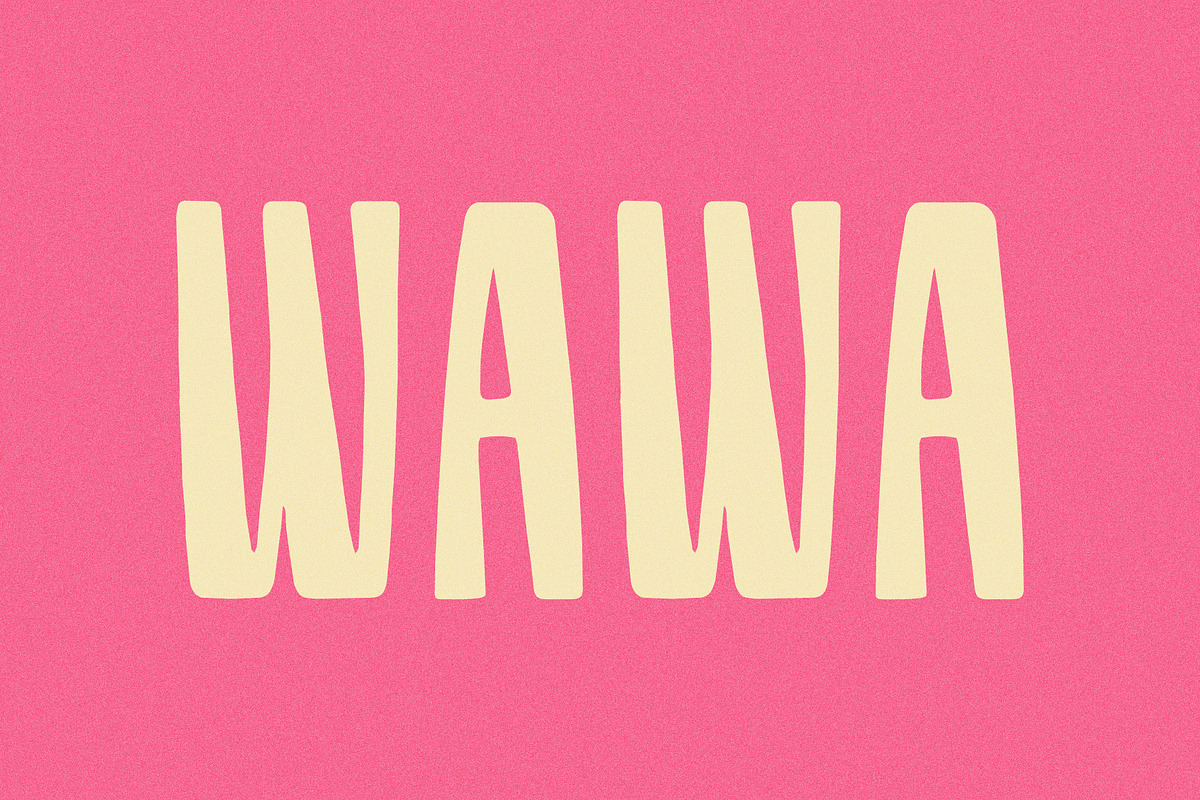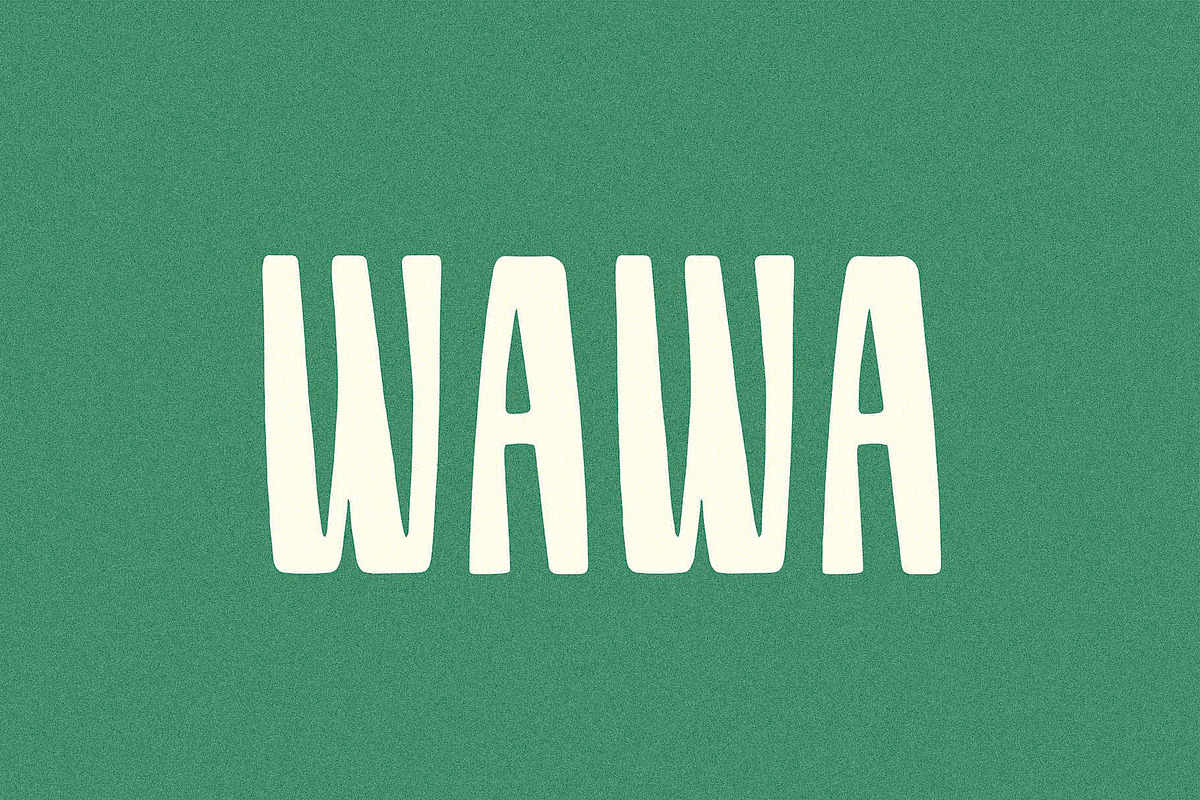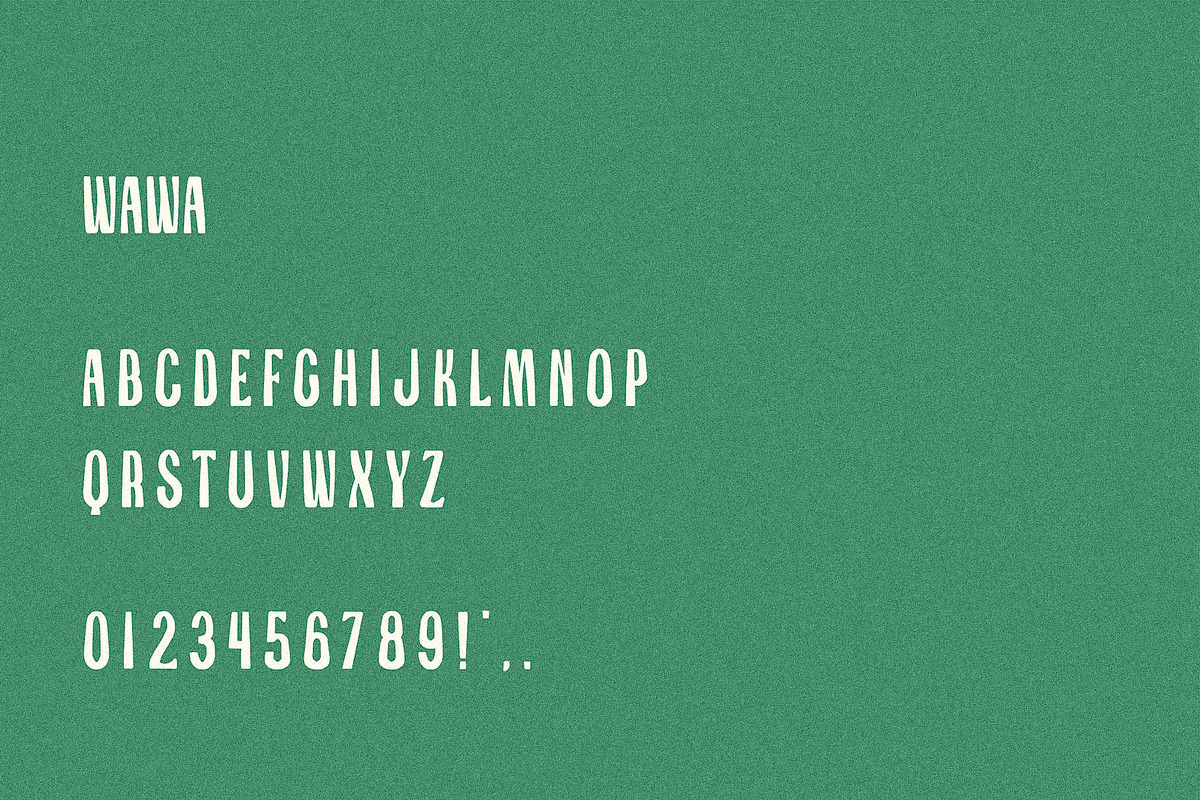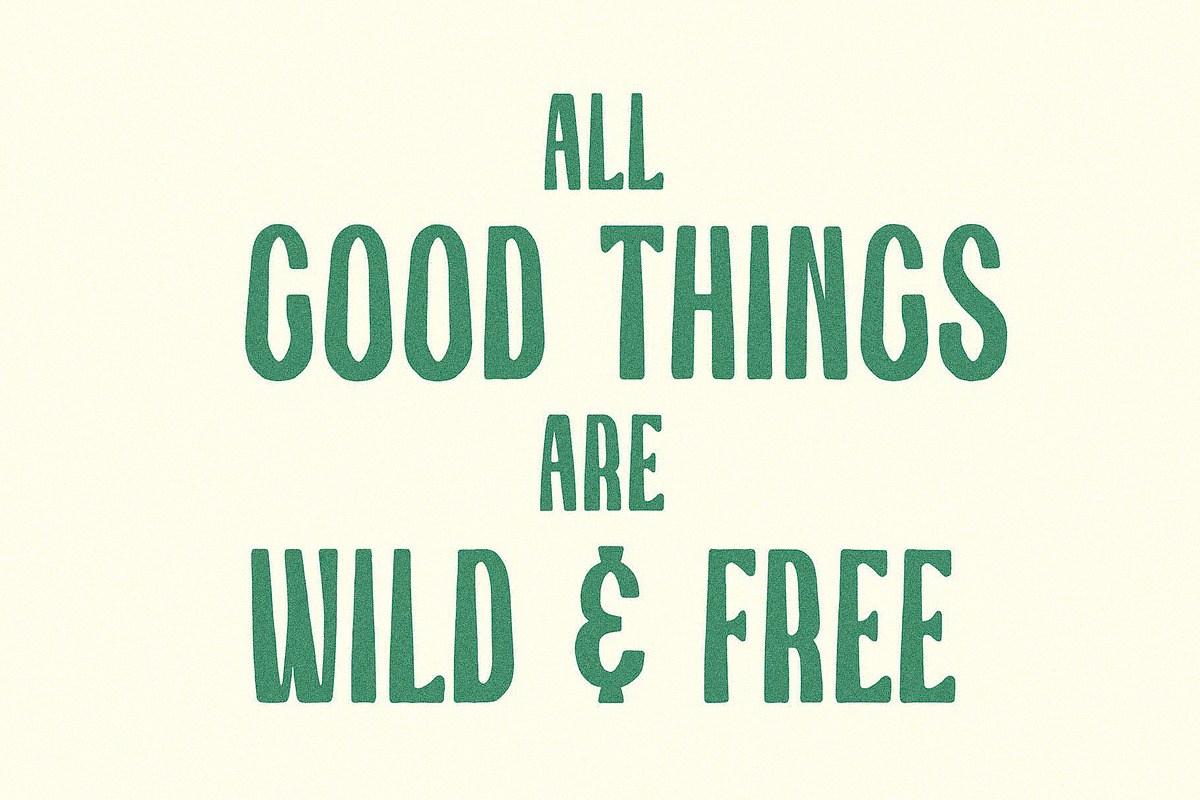
Wawa I A Relaxed Sans Serif
Wawa is a tropical-inspired display font that knows how to take its time.
It’s wide, relaxed, and happiest when used for bold, short phrases or eye-catching titles — but don’t let that limit you. Like any good vacation, it works in more places than you’d expect.
Basic Latin support with a limited set of accented characters.